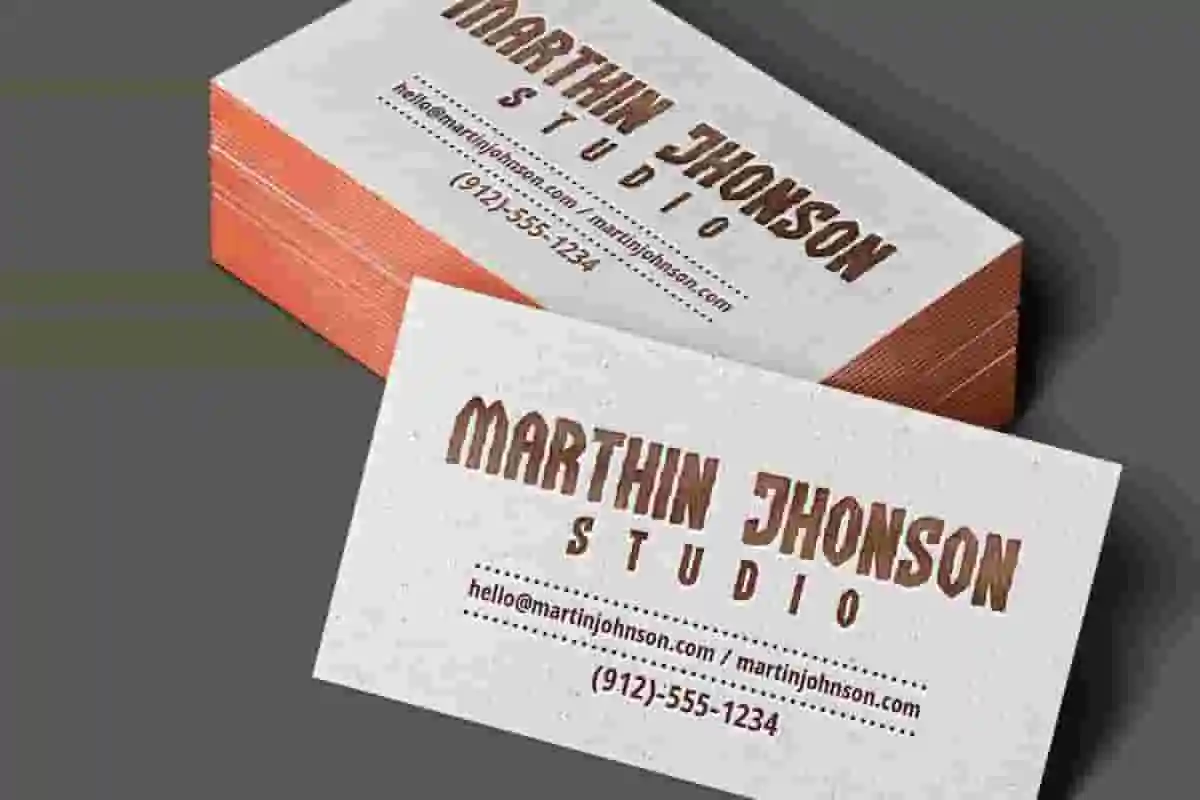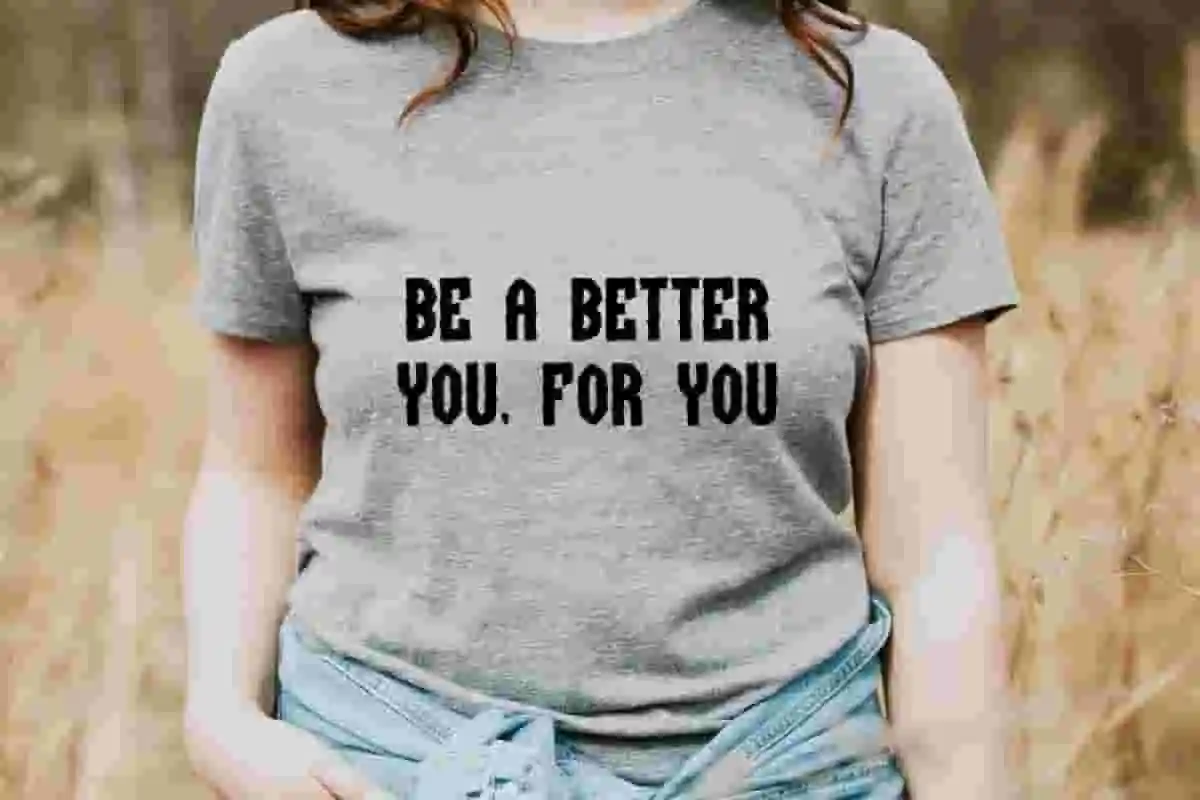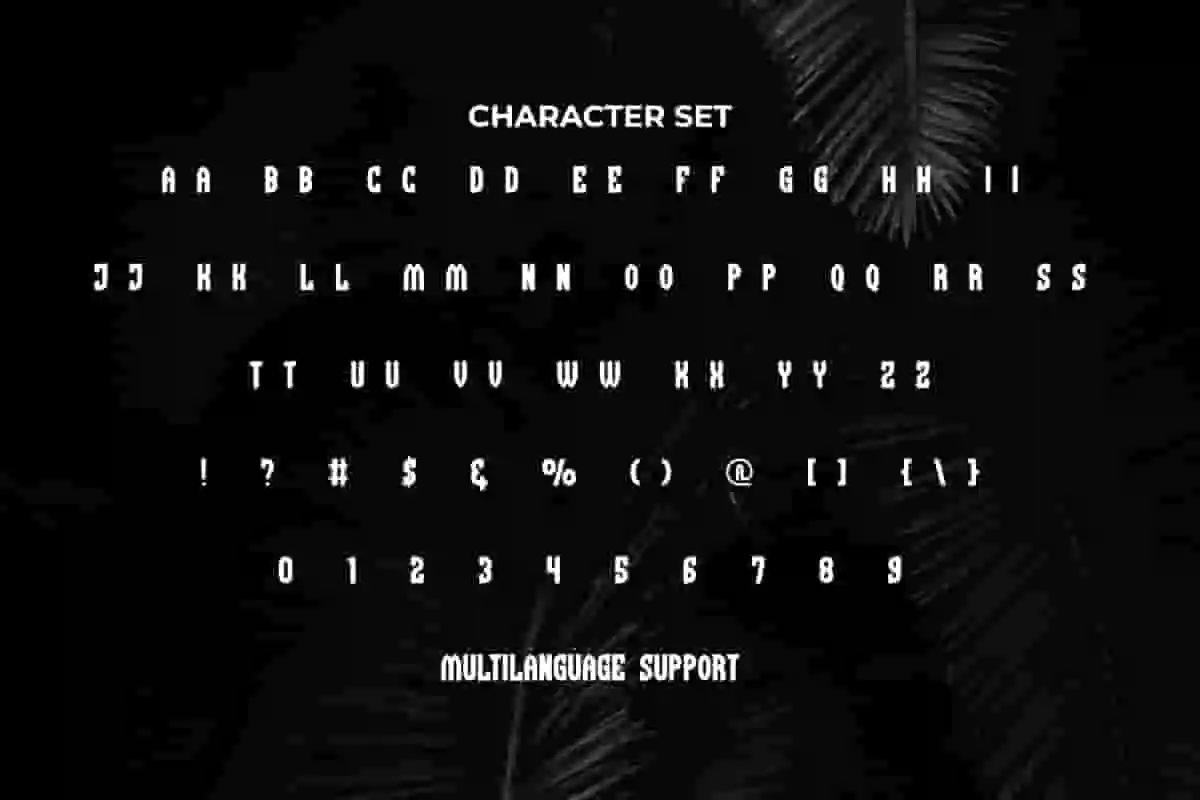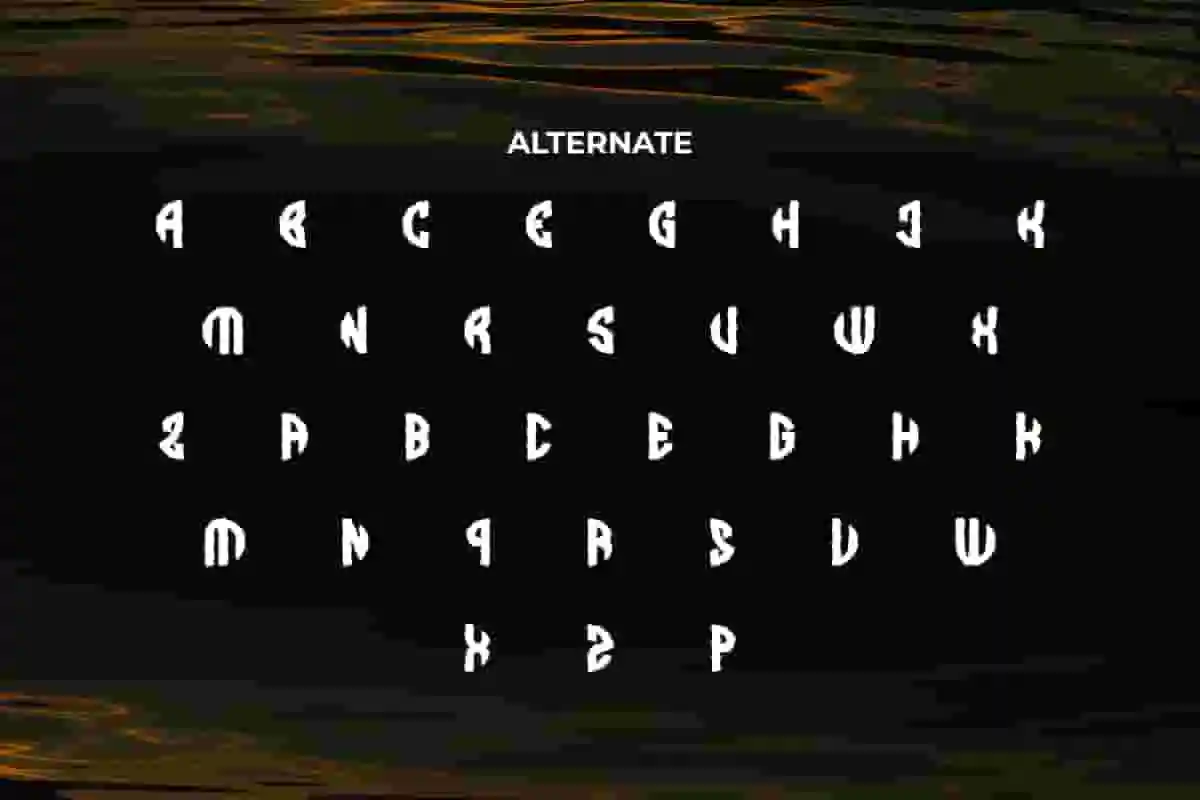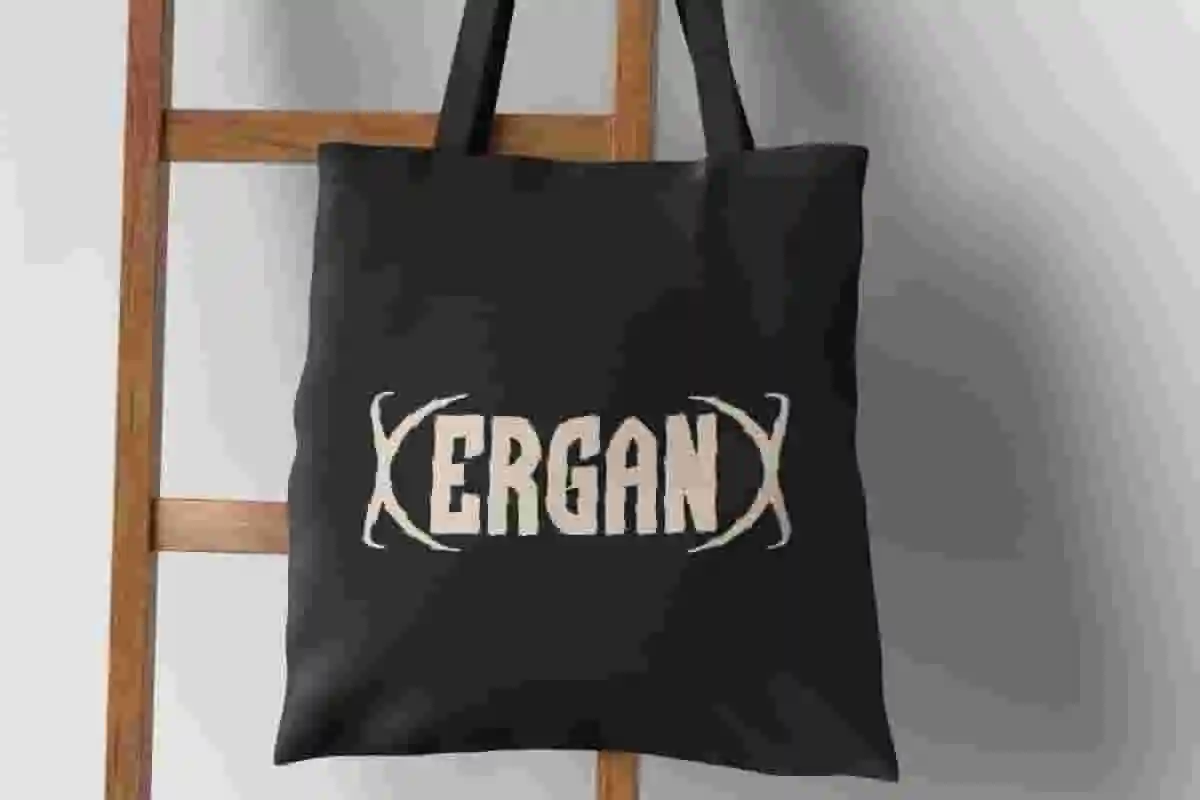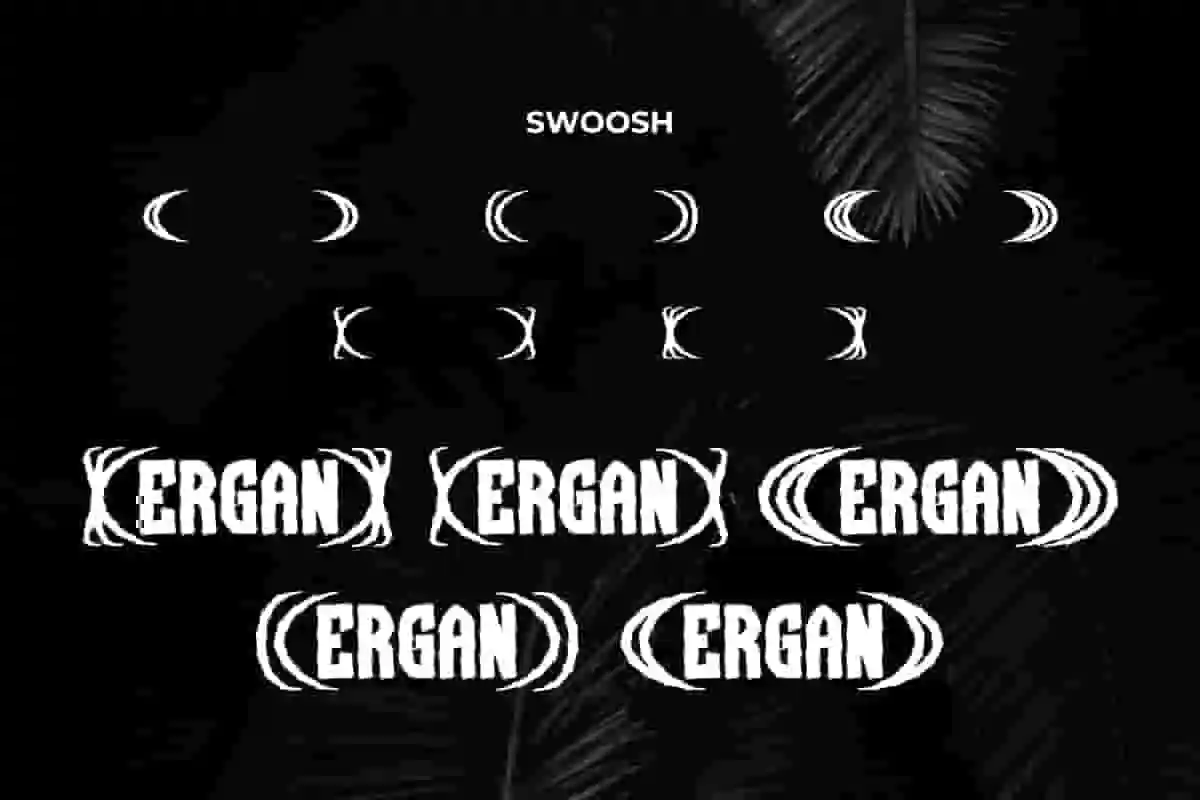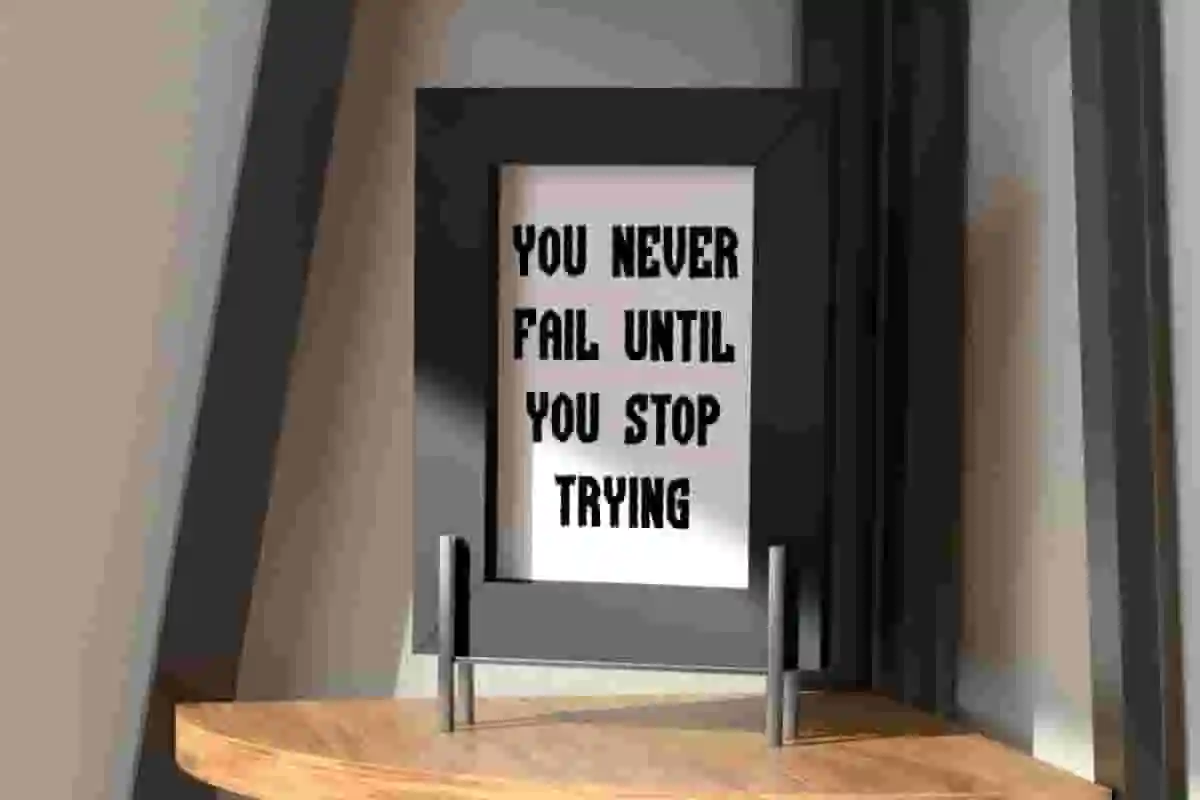
Ergan Font is a harsh and fierce decorative black metal font, created by NoahType. This font manages to make your designs look bold and stand out with its bold charm and rough texture. It will be perfect for any designs, such as custom design, signage, poster, brand image, cover, invitation, stationery, label, marketing material, menu, printing, product packaging, quotes, website, and many more!
Ergan Font includes full set of ALL CAPS for Uppercase and Lowercase Basic Characters, Numerals, Punctuation, Symbol, Alternate and Swoosh character. This font will make your design awesome and also a perfect choice for many industries, such as fashion, game, movie, event or festival, barber shop, accessories, advertising, art, café, printing, publishing, etc.